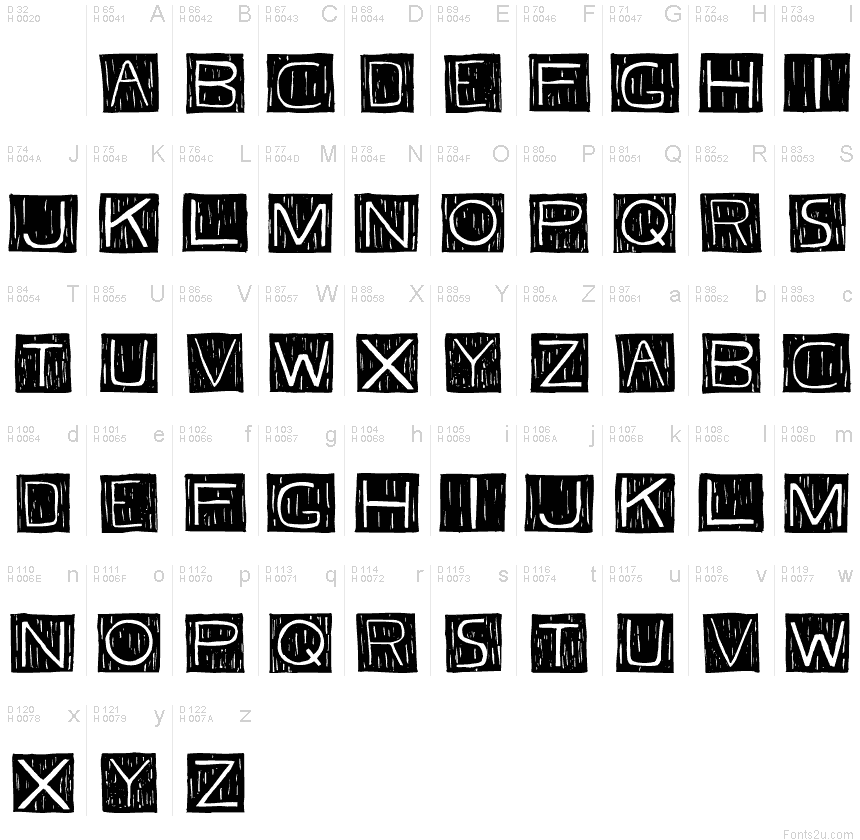
FKAFont Regular
FKAFont font by Metamorphosis Professional is a free decorative display typeface. Each character sits inside a rough, inked-in square, like a block print stamped by hand, with skinny white strokes scratching through the darkness. The uneven vertical streaks and slightly wobbly lines give it a raw, tactile energy—more street art than studio polish—so your titles feel loud, gritty, and unmistakably handmade.
Using FKAFont, bold headlines instantly take on a cut-and-paste, zine-like attitude that works beautifully for gig posters, indie album covers, skateboard graphics, event flyers, stickers, and edgy social posts. This free font shines at large sizes where the grainy texture can breathe; pair it with a clean geometric sans for body text to keep layouts readable while FKAFont does the shouting.